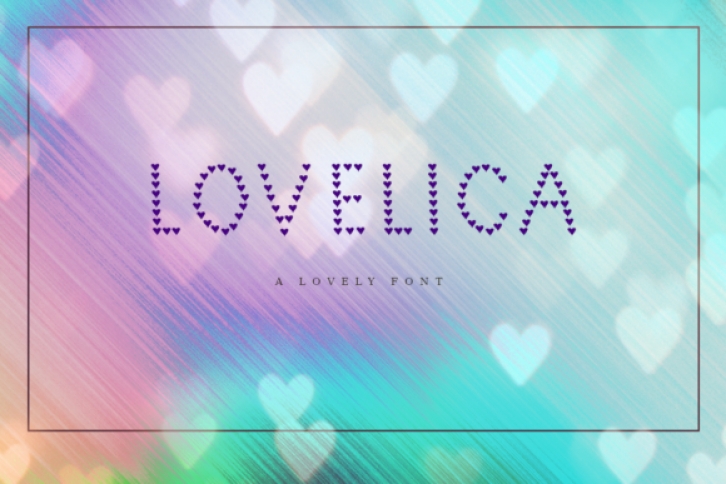
Lovelica is a romantic decorative font. It features heart-themed characters that will take your projects to the next level! Brighten up your Valentine’s cards with this cute font!